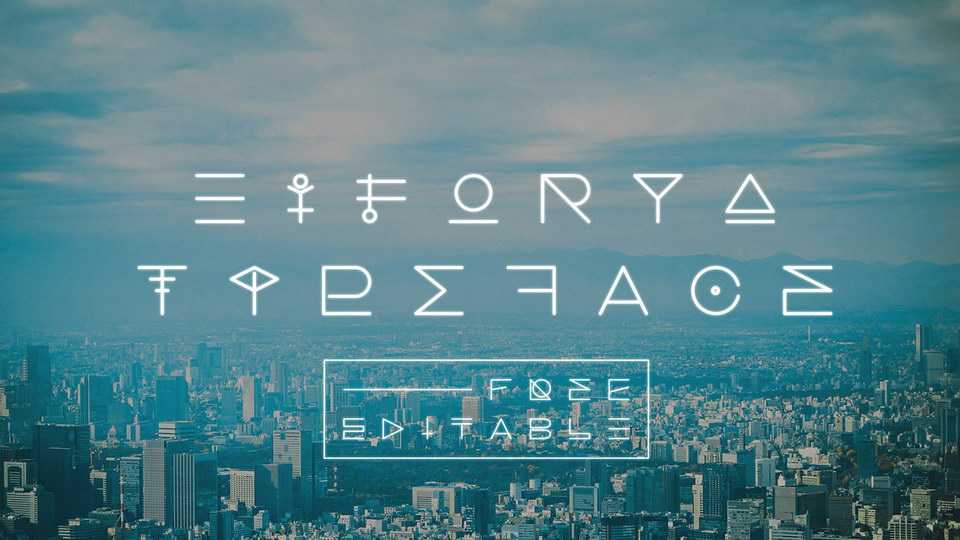
Download Eiforya font, an experimental futuristic icon-like monoline geometric typeface inspired by alien’s language spreading over sci-fi films. Eiforya has an enormous table of glyphs with vast choices of alternative letters.